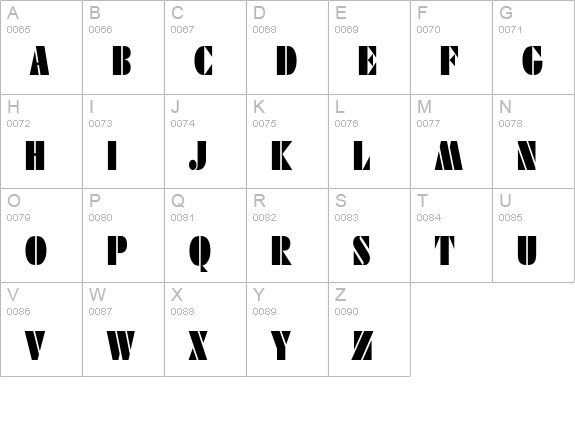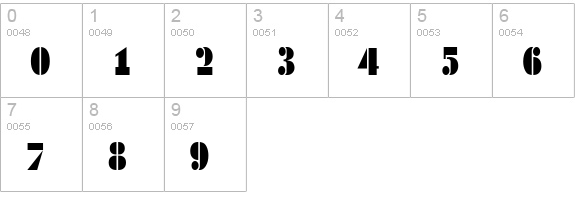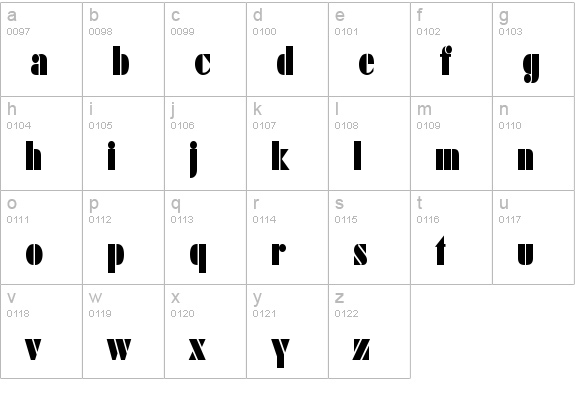
DekoBlackCondSerial-Regular Font Details
DekoBlackCondSerial-Regular is the standard, neutral variant in the DekoBlackCondSerial typeface family \xE2\x80\x94 well suited to general body text, paragraphs, and standard typographic work.
DekoBlackCondSerial-Regular is a stylish and modern font that exudes sophistication and elegance. With its sleek and streamlined design, this font is perfect for creating eye-catching headlines, logos, and brand identities. The sharp angles and clean lines of DekoBlackCondSerial-Regular make it a versatile choice for both print and digital projects. This font is available for free download at FontsMarket.com, making it easily accessible for designers and creatives looking to add a touch of sophistication to their work. Whether you're designing a website, creating a poster, or crafting a social media graphic, DekoBlackCondSerial-Regular is sure to make a bold statement. Don't miss out on the opportunity to elevate your designs with this stunning font. Download DekoBlackCondSerial-Regular today and see the difference it can make in your projects.